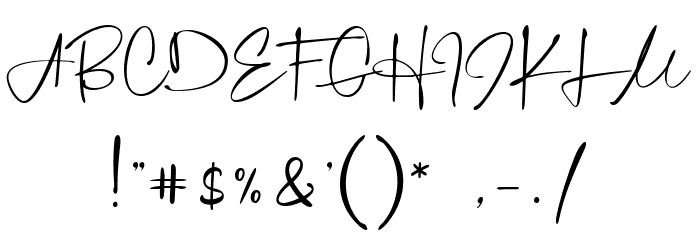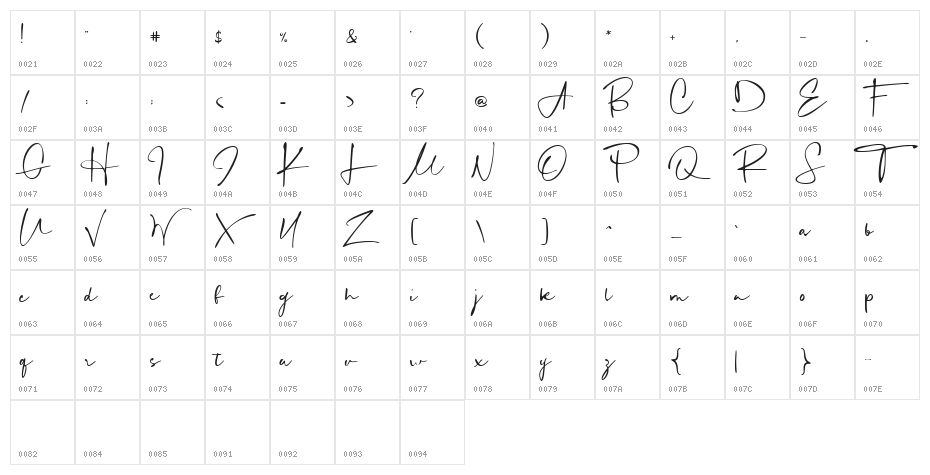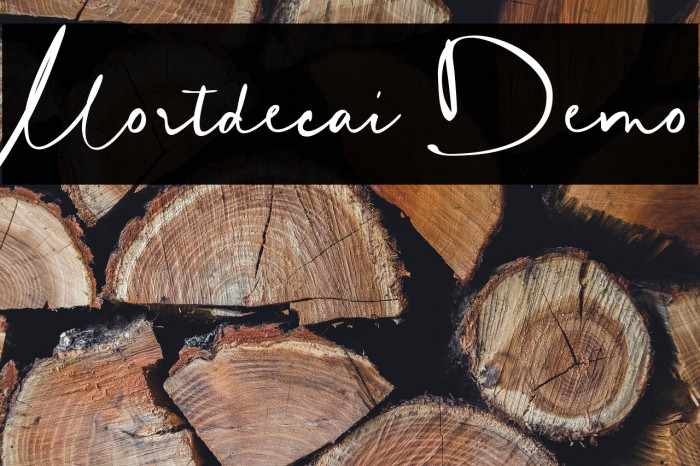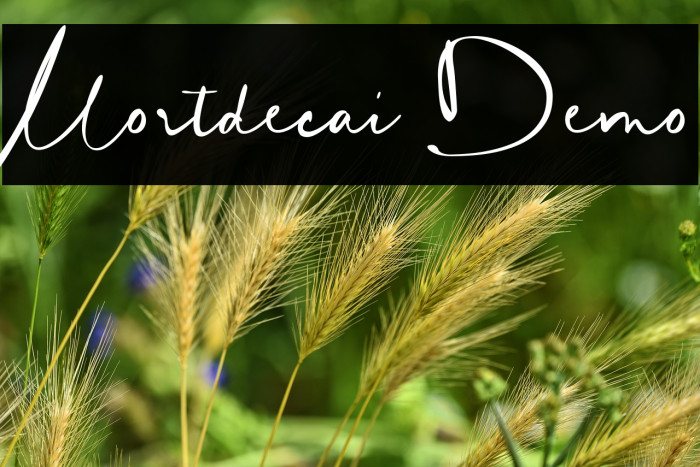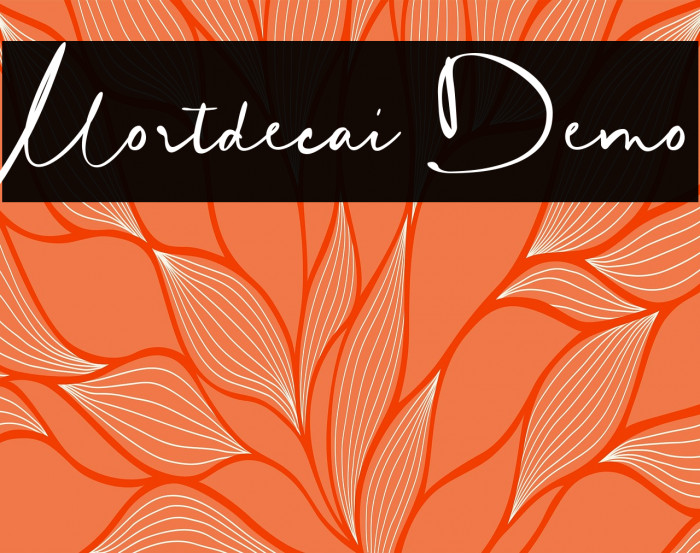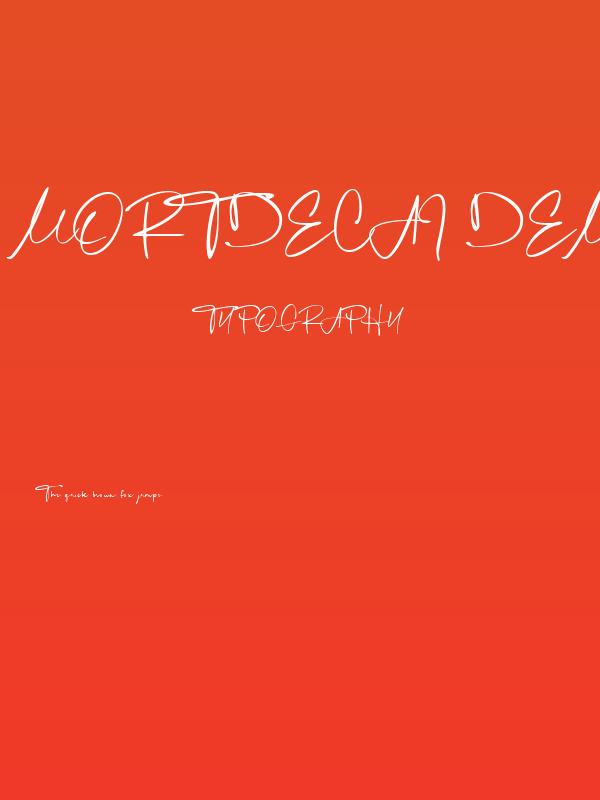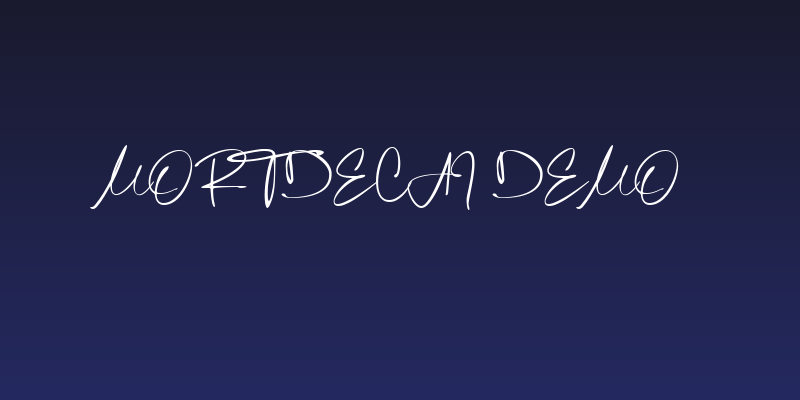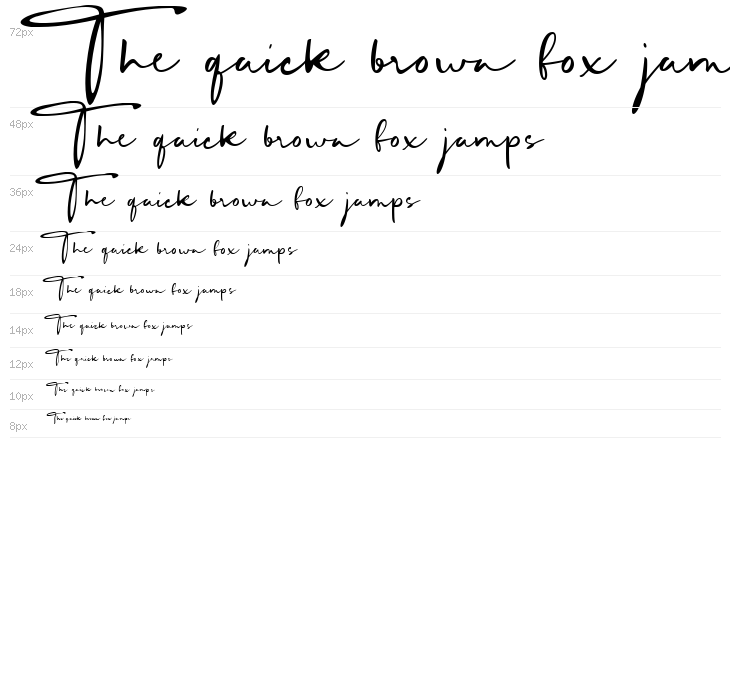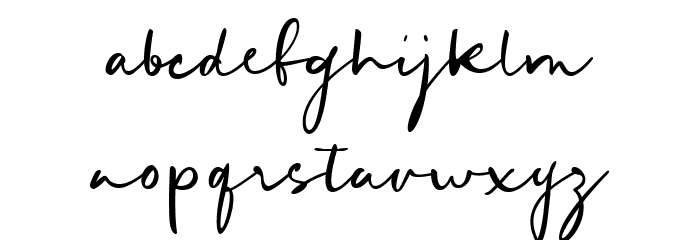
Mortdecai Demo Font
Mortdecai Demo Description
This font showcases a modern, handwritten style with a fluid and elegant appearance. The uppercase and lowercase letters exhibit a natural flow, with varying stroke thickness that adds a dynamic and lively feel. The characters are slightly slanted, enhancing the script-like quality. The font maintains a consistent rhythm, making it visually appealing for creative projects. It includes a full set of uppercase and lowercase letters, numbers, and a variety of special characters, allowing for versatile use in different contexts.
| Use Case | Logos, Invitations, Social Media |
| Proposed Projects | Ideal for wedding invitations, personal branding, social media graphics, and creative posters. |